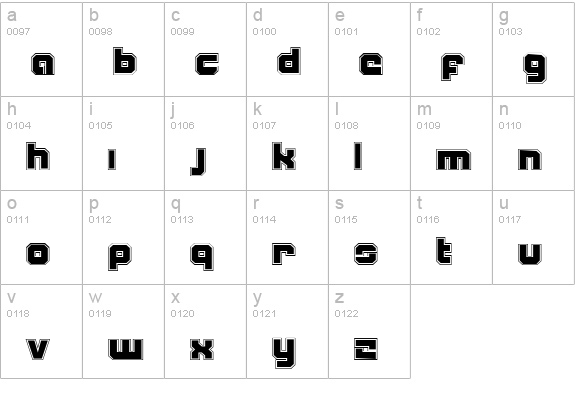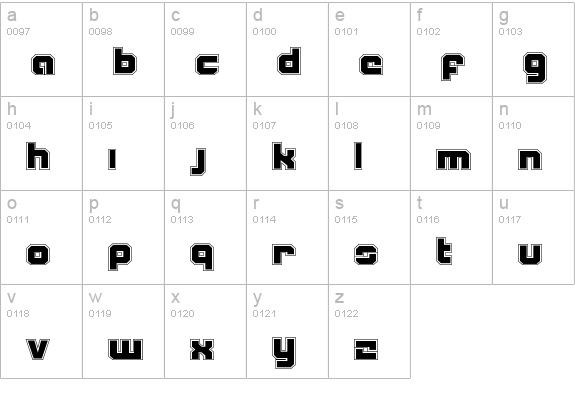
Introducing Weaponeer Academy font - a bold and dynamic typeface that exudes strength and sophistication. This modern font is perfect for creating eye-catching headlines, posters, and branding materials that demand attention. With its sharp edges and sleek lines, Weaponeer Academy font is designed to make a powerful statement in any design project. What's even better? Weaponeer Academy font is available for free download at FontsMarket.com, making it easily accessible to designers and creators looking to add a touch of boldness to their work. Don't miss out on the opportunity to elevate your designs with this striking font that commands attention and leaves a lasting impression. Download Weaponeer Academy font today and unleash your creativity like never before.